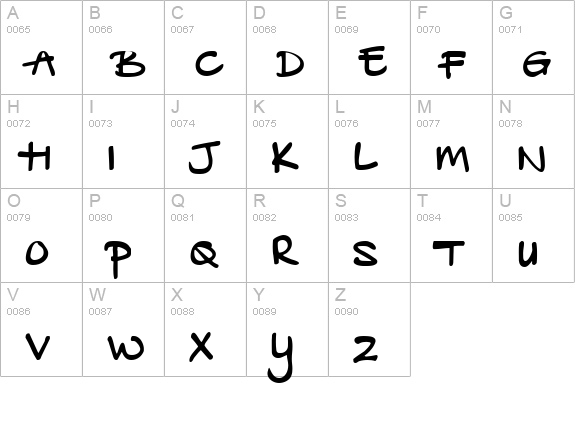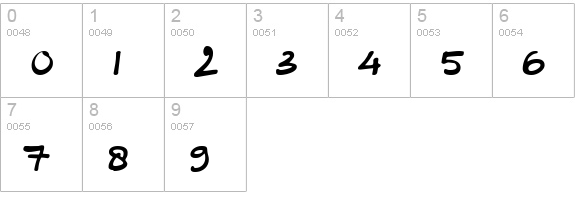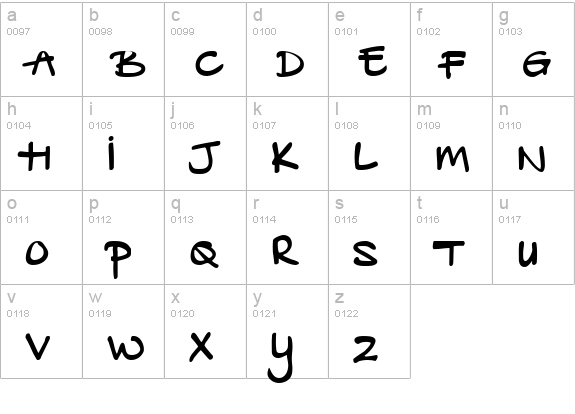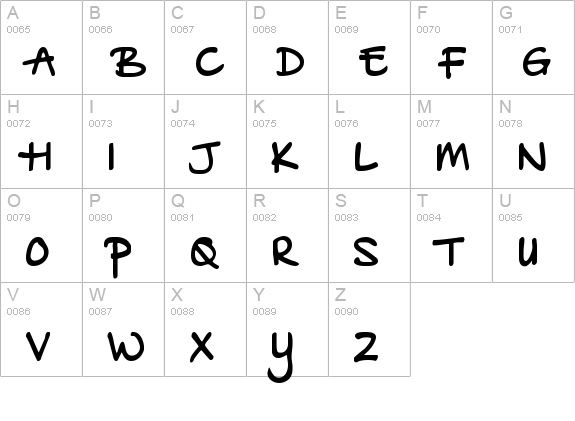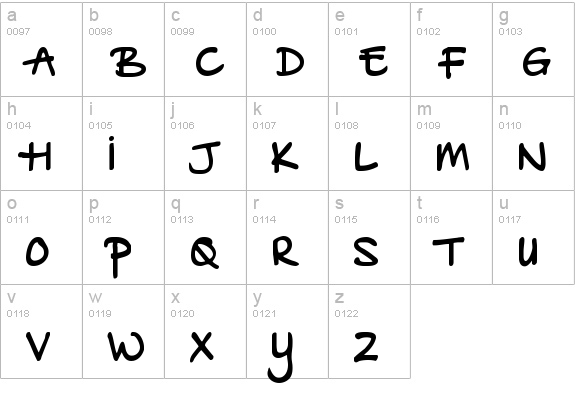
DK Babysitter is a free for personal use font in the Fancy > Feminine category. It has been downloaded 237 times and is available for Windows, Mac and Linux.
Introducing DK Babysitter, a delightful and playful font that is perfect for all your babysitting-related projects. This charming typeface exudes a sense of joy and innocence, making it an ideal choice for creating eye-catching designs that will capture the attention of both children and parents alike. With its rounded and friendly letterforms, DK Babysitter is sure to bring a smile to anyone's face. The soft curves and smooth lines create a sense of warmth and comfort, making it an excellent choice for designing logos, posters, invitations, and more. But what sets DK Babysitter apart from other fonts is that it is available for free! That's right, you can easily download this font at FontsMarket.com without spending a penny. We believe that creativity should be accessible to all, and DK Babysitter is our way of ensuring that everyone can add a touch of whimsy to their designs without breaking the bank. Whether you're a professional graphic designer or a parent looking to create personalized artwork for your little ones, DK Babysitter is a font that will exceed your expectations. Its versatility and playful nature make it suitable for a wide range of projects, from children's books and educational materials to party invitations and baby announcements. So don't miss out on this fantastic opportunity to enhance your designs with the free and fabulous DK Babysitter font. Head over to FontsMarket.com and start exploring the endless possibilities that this font has to offer. Embrace the joy and creativity that this font brings, and let DK Babysitter be your ultimate companion in creating captivating and memorable designs.